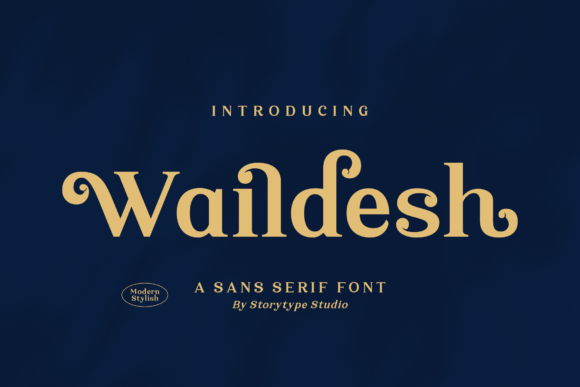
Storytype Studio's Waildesh Font is the perfect blend of modern and classic design, making it an ideal font for interior design. The unique style of this serif font is sure to catch your eye, while its modern look will leave you breathless.
If you're looking for a font that exudes elegance and luxury, Waildesh is the answer. Whether you're designing a logo, a book cover, or a movie title, this font will give your project the touch of sophistication it needs. Its bold and confident letters make it a perfect choice for fashion brands, magazines, and even clothing designs.
But Waildesh isn't just about looks. Its clean and easy-to-read letters make it a great choice for any project that requires clear and concise messaging. Use it for lettering, quotes, and anything else that requires a touch of class.